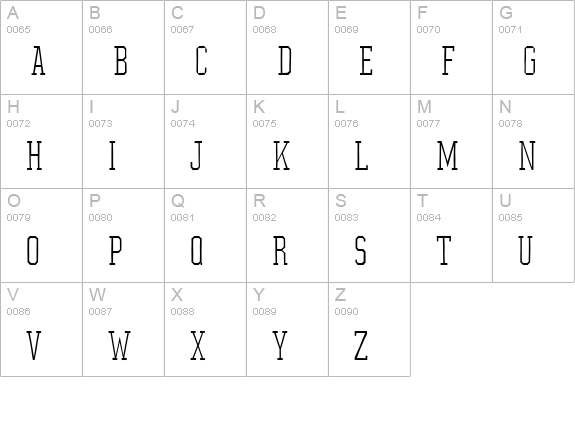
Graphium Thin Font Details
Graphium Thin is a delicate, low-contrast variant in the Graphium typeface family \xE2\x80\x94 well suited to fashion editorial, minimal branding, and high-contrast display.
Graphium Thin is a sleek and modern font that exudes elegance and sophistication. Its thin, graceful lines make it perfect for adding a touch of refinement to any design project. Whether you are creating invitations, branding materials, or signage, Graphium Thin will elevate your work to a new level of style. The best part is that Graphium Thin is completely free! You can easily download this stunning font at FontsMarket.com and start using it in your projects right away. Don't miss out on the opportunity to enhance your designs with the beauty of Graphium Thin. Download it for free today!